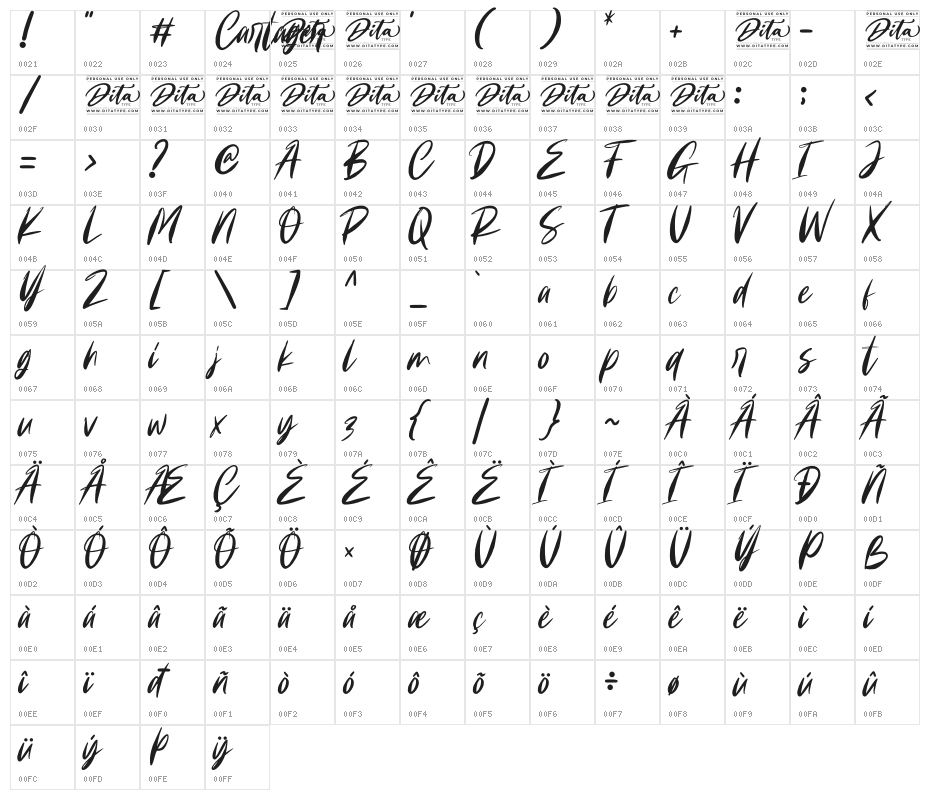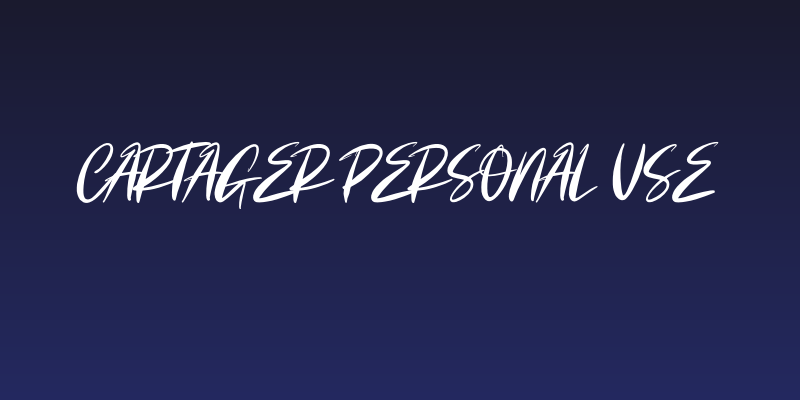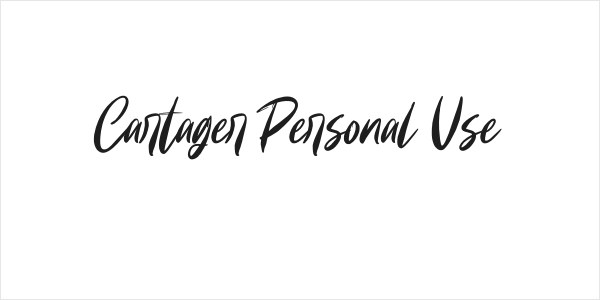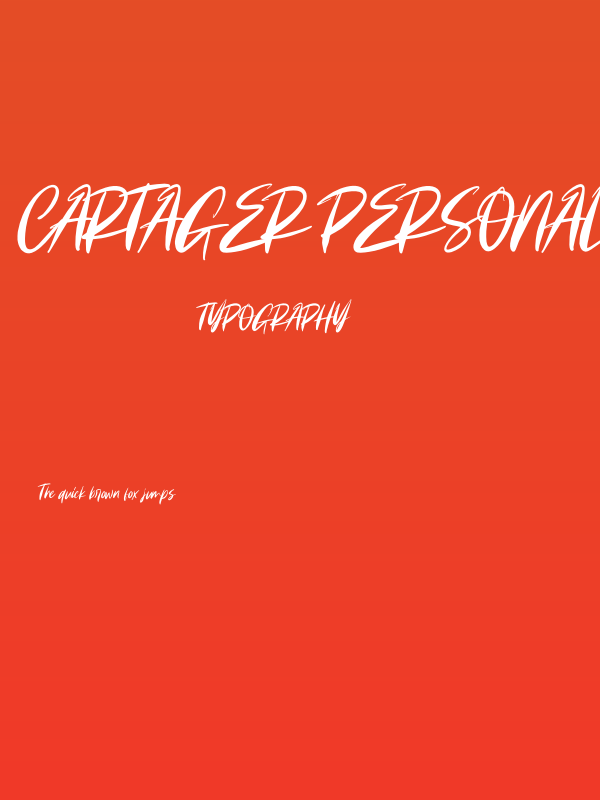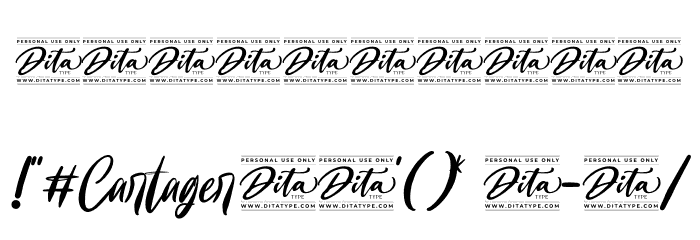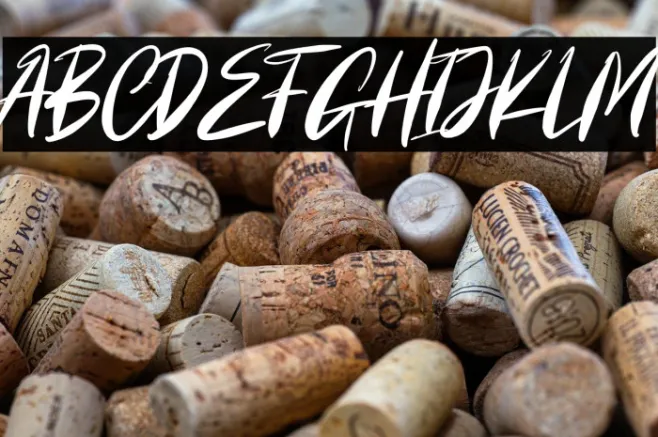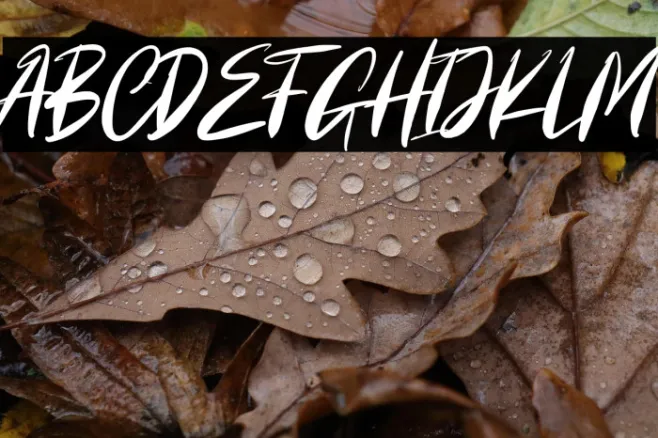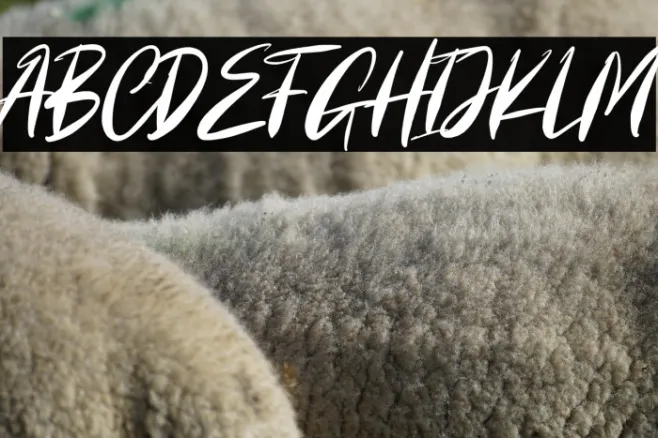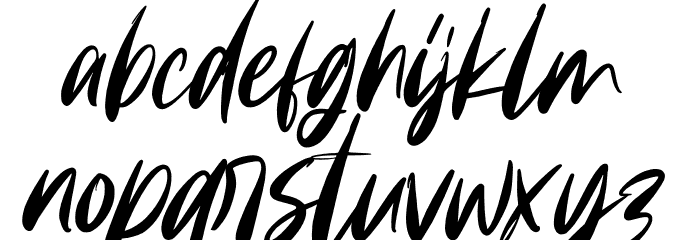
Cartager Personal Use Font
Cartager Personal Use Description
This font features a bold, expressive handwritten style with a dynamic and energetic flow. The letters are characterized by their sweeping curves and varying stroke widths, giving it a lively and personal touch. The uppercase letters are tall and slightly condensed, while the lowercase letters maintain a consistent height, adding to the font's readability. The overall appearance is casual yet stylish, making it suitable for projects that require a personal or artistic flair. The font includes a full set of uppercase and lowercase letters, numbers, and a selection of special characters, allowing for versatile use in various design contexts.
| Proposed Projects | Ideal for branding, invitations, social media graphics, and artistic projects that require a personal touch. |